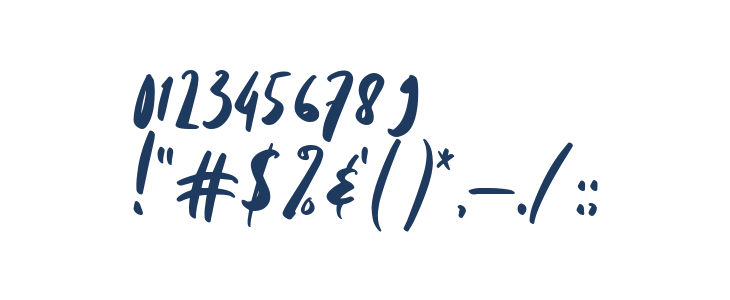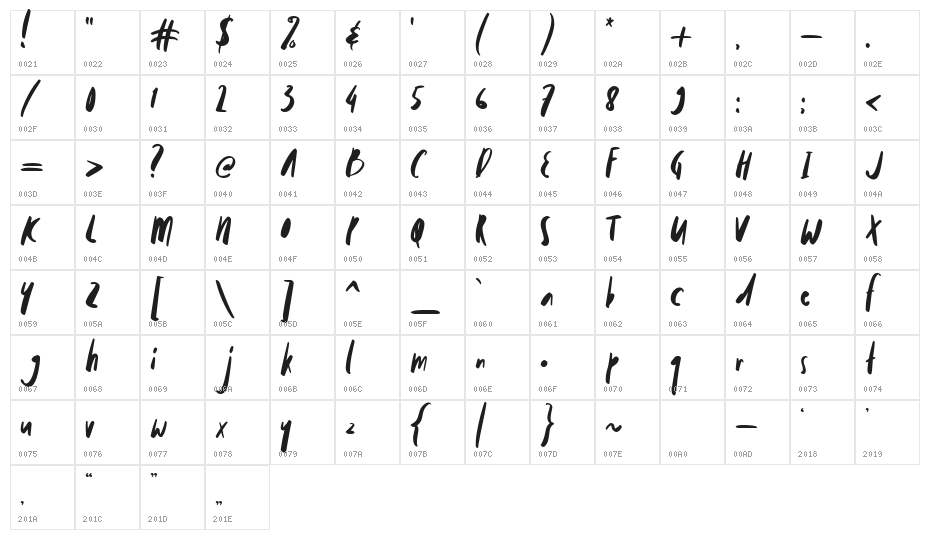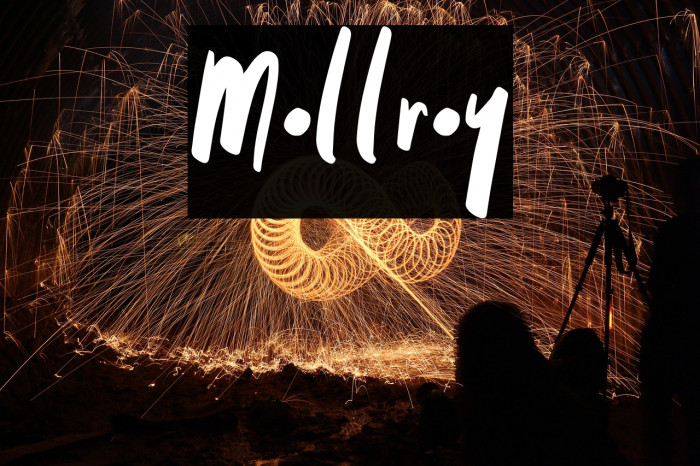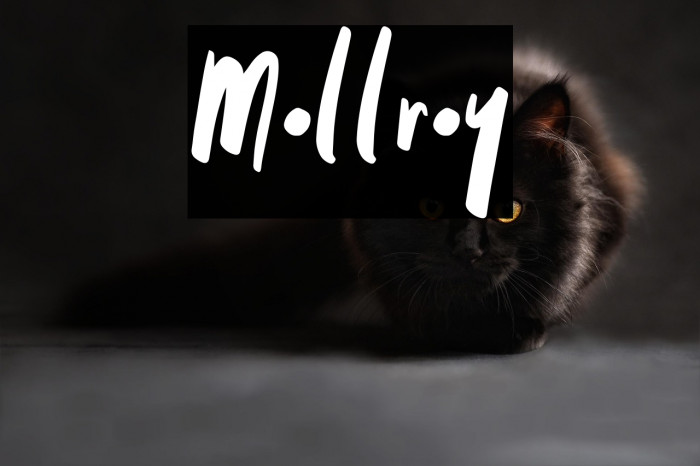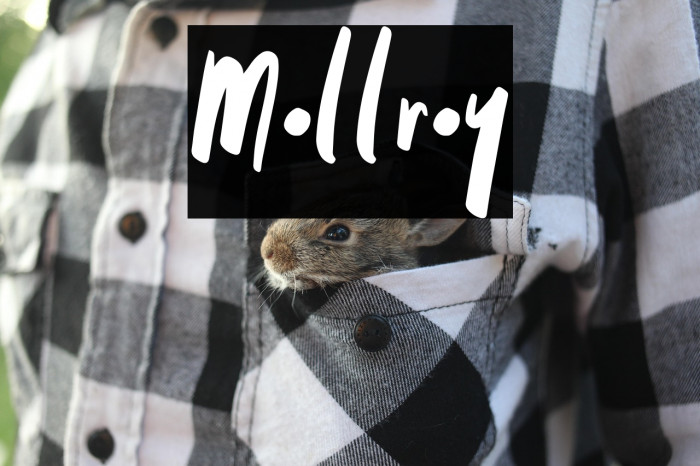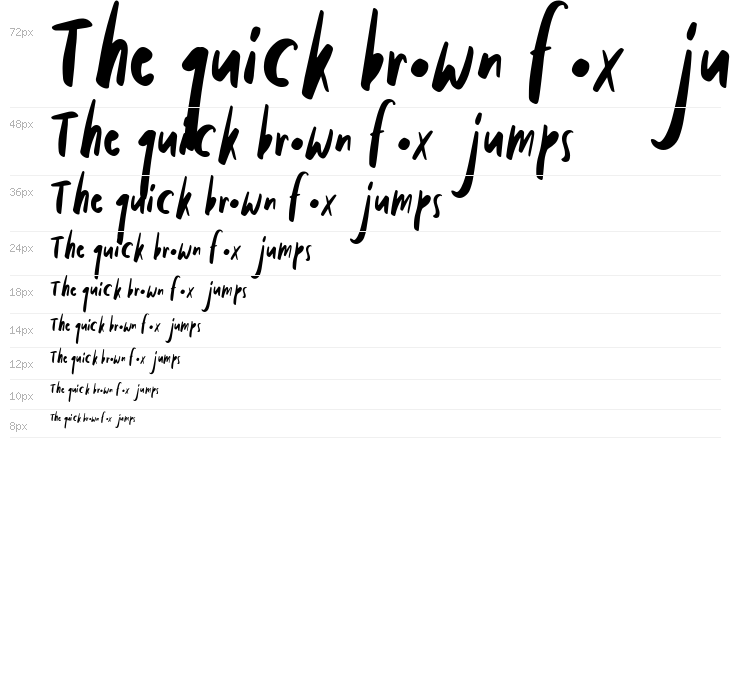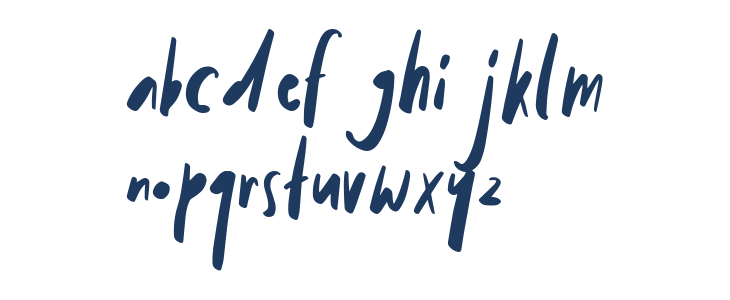
Mollroy Font
Mollroy Description
This font features a bold, expressive style with a handwritten appearance. The letters are slightly slanted, giving a dynamic and energetic feel. The strokes are thick and consistent, with a playful and casual vibe. The uppercase and lowercase letters maintain a cohesive look, while the numbers and special characters complement the overall design. This font is ideal for projects that require a personal touch or an informal tone.
| Overall Style | Casual and Playful |
| Use Case | Headlines, Logos, Informal Text |
| Proposed Projects | Ideal for greeting cards, posters, social media graphics, and branding materials that require a personal and informal touch. |